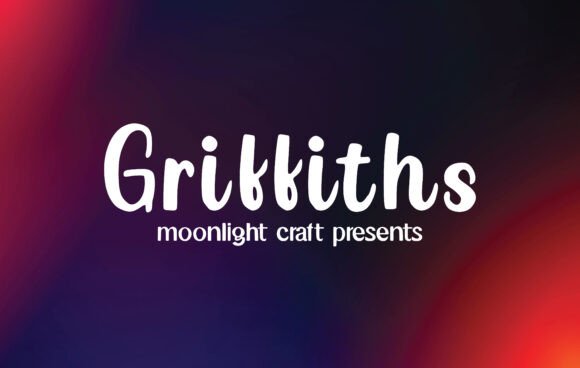
Griffiths Font: Elevate Your Creative Ideas with this Lovely Handwritten Font
In the world of typography, fonts play a crucial role in conveying messages, expressing emotions, and creating visual identities. Among the numerous fonts available, Griffiths Font stands out as a lovely and beautiful handwritten font that has the potential to take your creative ideas to the highest level. In this article, we’ll explore the features, benefits, and uses of Griffiths Font, and why it’s an excellent choice for creating eye-catching logos, branding, and quotes.
What Makes Griffiths Font Special?
Griffiths Font is a unique and elegant handwritten font that boasts a distinctive character. Its beautiful and flowing strokes make it perfect for creating visually appealing designs that capture the audience’s attention. The font’s features include:
- Handwritten style: Griffiths Font has a natural, handwritten look that adds a personal touch to your designs.
- Elegant strokes: The font’s smooth and flowing strokes create a sense of sophistication and refinement.
- Unique character: Griffiths Font has a distinct personality that sets it apart from other fonts.
Benefits of Using Griffiths Font
Griffiths Font offers several benefits that make it an excellent choice for designers, artists, and marketers. Some of the advantages of using Griffiths Font include:
- Creativity boost: Griffiths Font’s unique style and character can inspire creativity and help you bring your ideas to life.
- Attention-grabbing: The font’s elegant and beautiful appearance makes it perfect for creating eye-catching designs that grab the audience’s attention.
- Versatility: Griffiths Font can be used for a wide range of design projects, from logos and branding to quotes and social media graphics.
How to Use Griffiths Font
Griffiths Font is a versatile font that can be used for various design projects. Here are some ideas on how to use Griffiths Font:
- Logos and branding: Create a memorable and elegant logo for your brand using Griffiths Font.
- Quotes and typography: Use Griffiths Font to create visually appealing quotes and typography designs.
- Social media graphics: Add a touch of elegance to your social media graphics, such as Instagram posts and Facebook covers, with Griffiths Font.
- Invitations and events: Use Griffiths Font to create beautiful and unique invitations, flyers, and event materials.
Tips and Tricks for Using Griffiths Font
To get the most out of Griffiths Font, here are some tips and tricks to keep in mind:
- Pair with complementary fonts: Combine Griffiths Font with complementary fonts to create a harmonious and visually appealing design.
- Experiment with colors: Try different color combinations to find the perfect match for your design and Griffiths Font.
- Pay attention to spacing: Make sure to adjust the spacing between letters and words to create a clean and balanced design.
In conclusion, Griffiths Font is a lovely and beautiful handwritten font that can elevate your creative ideas to the highest level. Its unique character, elegant strokes, and versatility make it an excellent choice for creating eye-catching logos, branding, and quotes. By following the tips and tricks outlined in this article, you can unlock the full potential of Griffiths Font and take your designs to the next level.